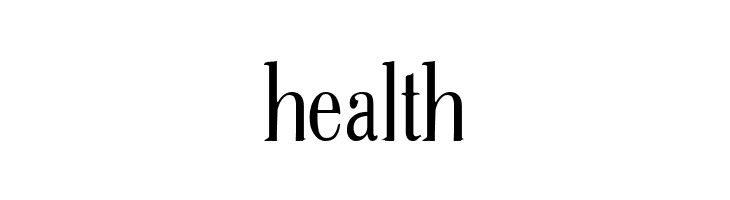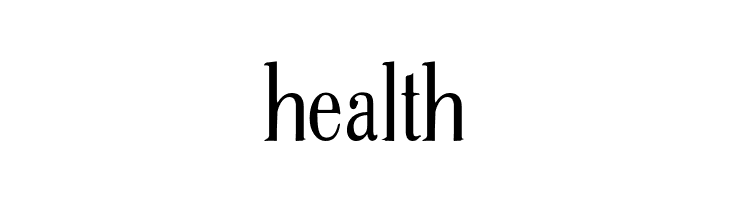
Gudea Bold Font
A bold, modern sans-serif font with clean lines and uniform strokes.
Gudea Font
Mode G Regular Font
A modern, geometric font with rounded edges and uniform stroke width.
Wilmina Font
A modern, sans-serif font with a clean and minimalist design.
Scrivimi Font
A bold, expressive script font with a handwritten style.
LONDON PRESLEY Font
A bold, playful font with slightly irregular shapes and a whimsical style.
Gudea Italic Font
A modern sans-serif italic font with clean lines and balanced proportions.
FacesittingProject Font
An elegant script font with flowing, interconnected letters and ornate flourishes.
HenchgirlComicFixed Font
Gudariak Font
A bold, geometric font with sharp, angular design elements.
Gudvayne Regular Font
A modern serif font with elegant, elongated letterforms and pronounced serifs.
Colpa Tua Font
A bold, expressive handwritten font with dynamic strokes and playful flair.
WHITEWASHER Font
A bold, hand-painted style font with an artistic, brush-stroke appearance.
GUDTAIMS Font
A bold, playful serif font with a vintage flair.
Gudang Font
A bold, expressive handwritten font with dynamic strokes and a playful vibe.